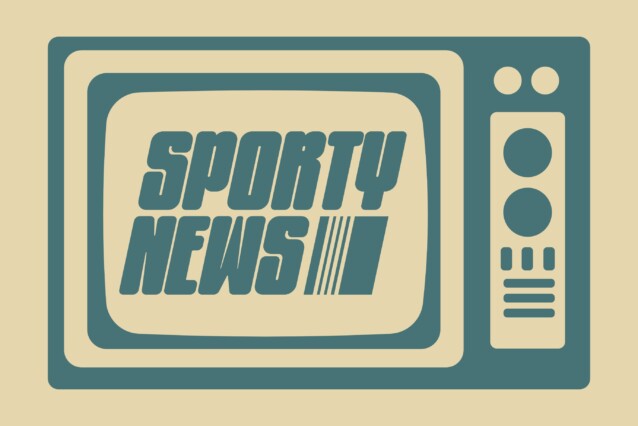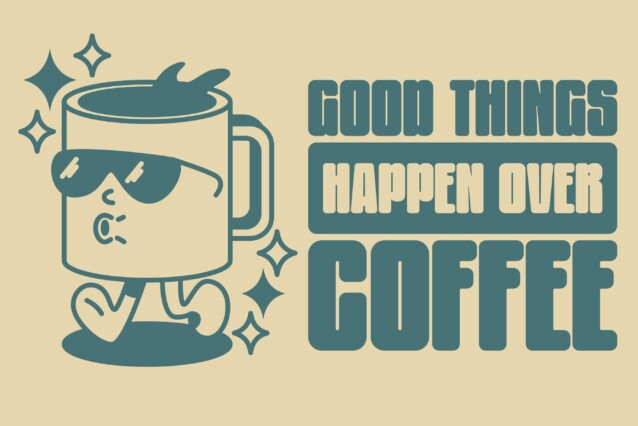
The Goodmother Font
The Goodmother Font is a modern and stylish display typeface that is meticulously crafted to add a touch of sophistication and elegance to your graphic designs. This font will give your artwork a bold and dramatic statement with its super easy legible typestyle. you can use it for many kinds of projects, like posters, logos, labels, packaging, quotes, social media, youtube video, stationary, book covers, stickers, price tags, crafts and more. Use it to add that special retro touch to any design idea you can think of!